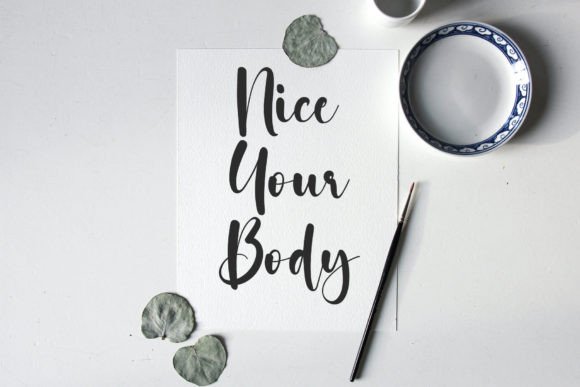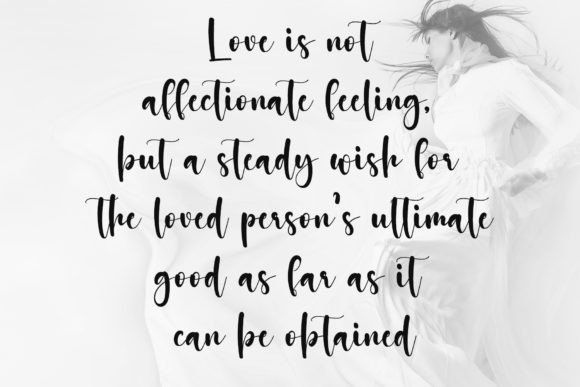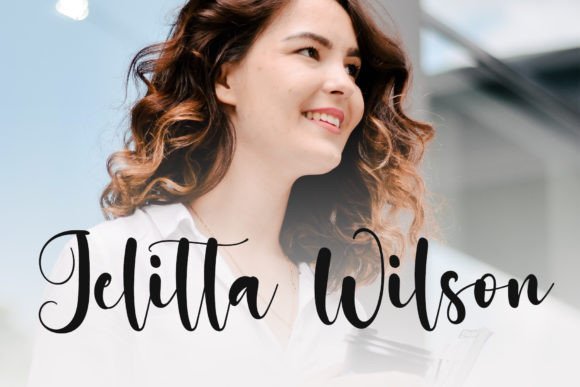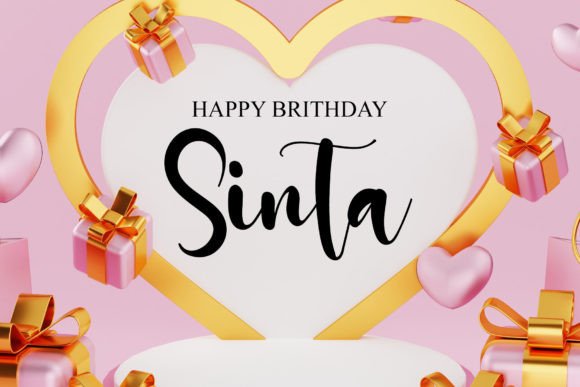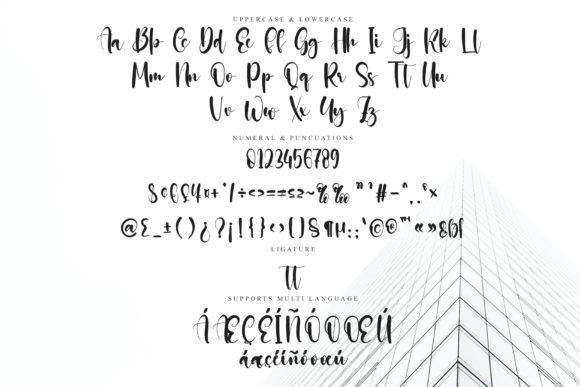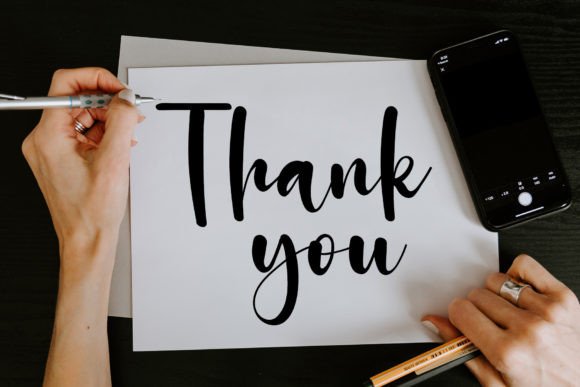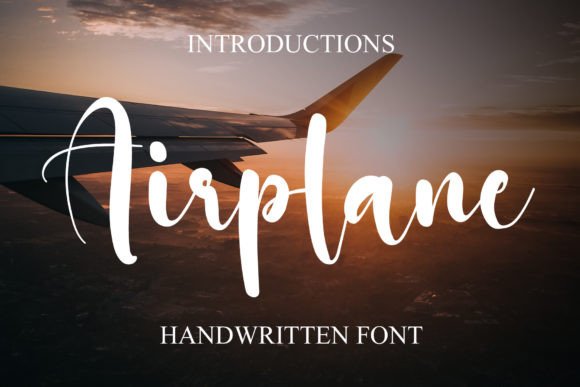
Introducing Airplane Font: Elevate Your Designs with Elegance
Are you on the hunt for a font that adds a touch of sophistication and charm to your projects? Look no further than Airplane Font, a stylish and dainty script font designed to elevate your designs to new heights. Whether you’re working on logos, branding projects, labels, photography, watermarks, or special events, Airplane Font is the perfect choice for crafters and designers seeking a beautiful script taste.
What Makes Airplane Font Special?
Airplane Font stands out from the crowd with its unique blend of elegance and playfulness. This gorgeous script font is carefully crafted to provide a distinctive look that will set your projects apart. Here are some key features that make Airplane Font a must-have for designers:
• PUA Encoding: Airplane Font is PUA encoded, which means you can easily access all the glyphs and swashes without any hassle. This feature allows you to have full control over your typography, making it simple to customize your text to fit your design needs.
• Versatility: From logos and branding projects to labels, photography, and special events, Airplane Font is suitable for a wide range of applications. Its versatility makes it an excellent addition to any designer’s toolkit.
• Elegant and Dainty: The font’s stylish and dainty script style adds a touch of sophistication to any project. Its elegant appearance makes it perfect for designs that require a refined and luxurious feel.
Use Cases for Airplane Font
Airplane Font is an incredibly versatile font that can be used in various design projects. Here are some use cases to inspire you:
• Logos and Branding: Create a lasting impression with a custom logo that incorporates Airplane Font. Its elegant script style is perfect for businesses and brands looking to establish a sophisticated identity.
• Labels and Packaging: Add a touch of elegance to your product labels and packaging with Airplane Font. Its dainty script style is ideal for creating eye-catching and premium-looking designs.
• Photography and Watermarks: Use Airplane Font to create beautiful watermarks for your photographs or add captions with a touch of sophistication.
• Special Events: Make your event invitations, programs, or decorations stand out with Airplane Font. Its elegant script style is perfect for weddings, parties, and other special occasions.
Tips for Using Airplane Font Effectively
To get the most out of Airplane Font, here are some tips to keep in mind:
• Pair with Other Fonts: Experiment with pairing Airplane Font with other fonts to create a unique and visually appealing combination.
• Adjust Font Size and Color: Play with font sizes and colors to create a hierarchy of text and add visual interest to your design.
• Use Swashes and Glyphs: Take advantage of Airplane Font’s PUA encoding and use the swashes and glyphs to add a personal touch to your design.
Airplane Font is a stunning script font that can elevate your designs to new heights. Its elegant and dainty script style, combined with its versatility and PUA encoding, make it an excellent choice for designers and crafters. Whether you’re working on logos, branding projects, labels, photography, or special events, Airplane Font is sure to add a touch of sophistication and charm to your projects. So why wait? Download Airplane Font today and take your designs to new heights!